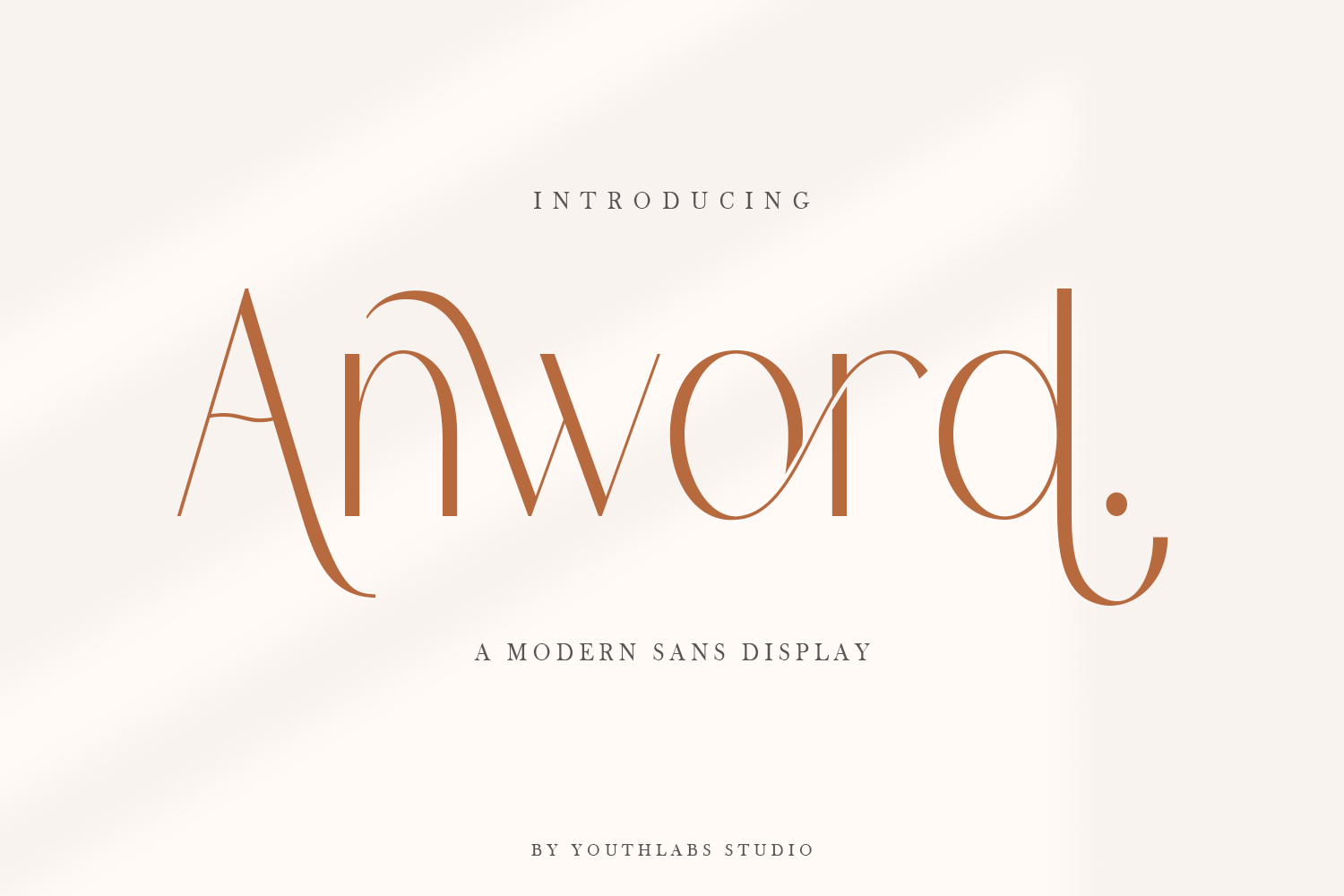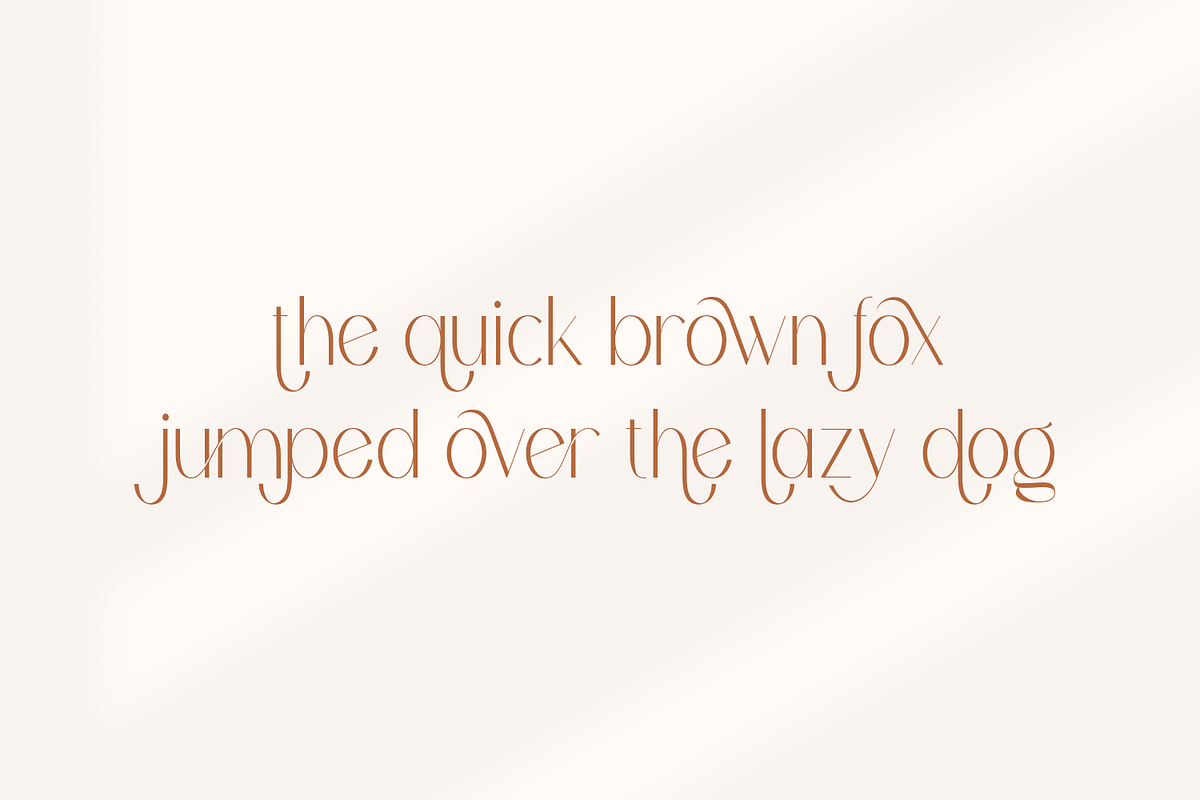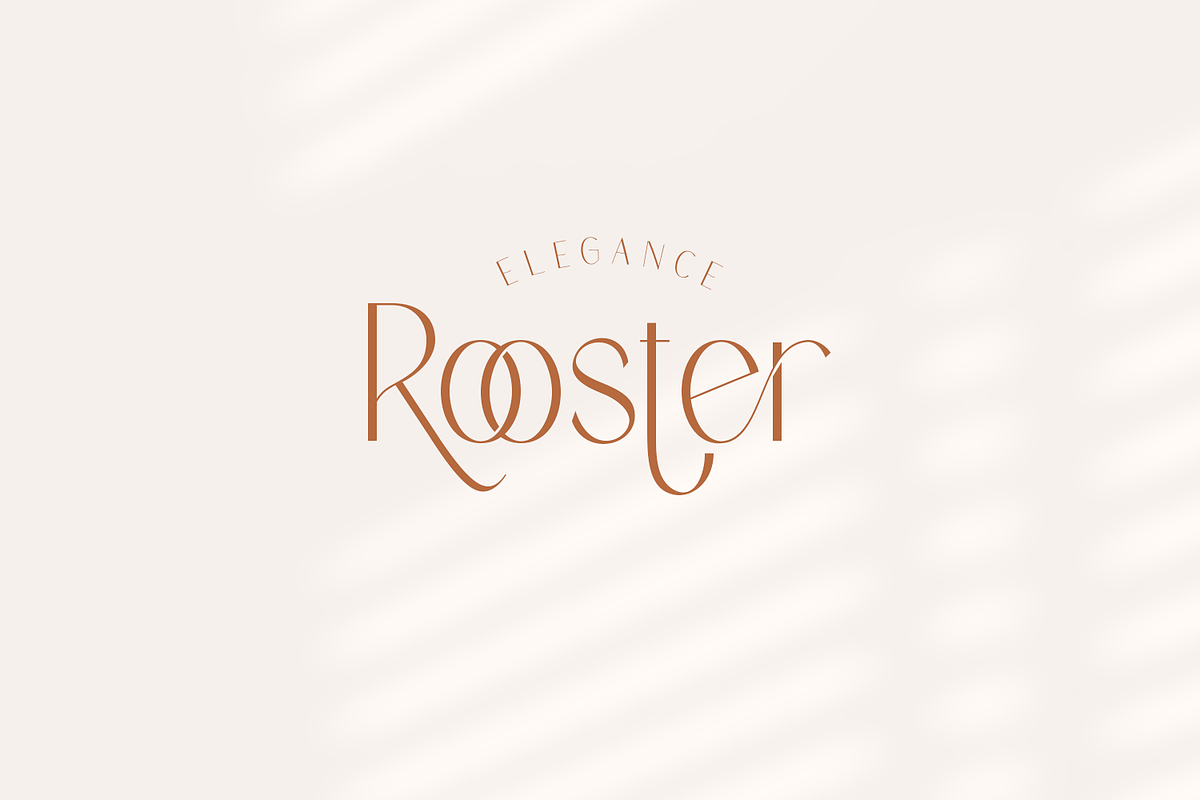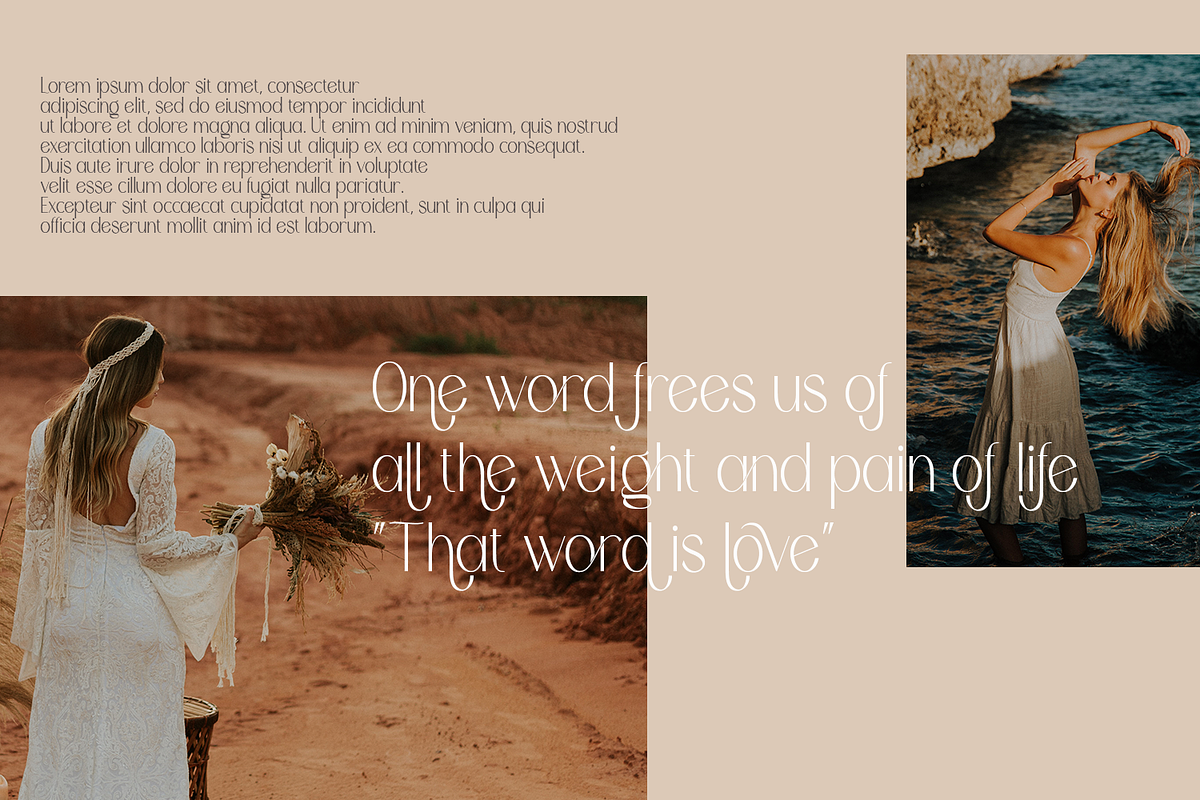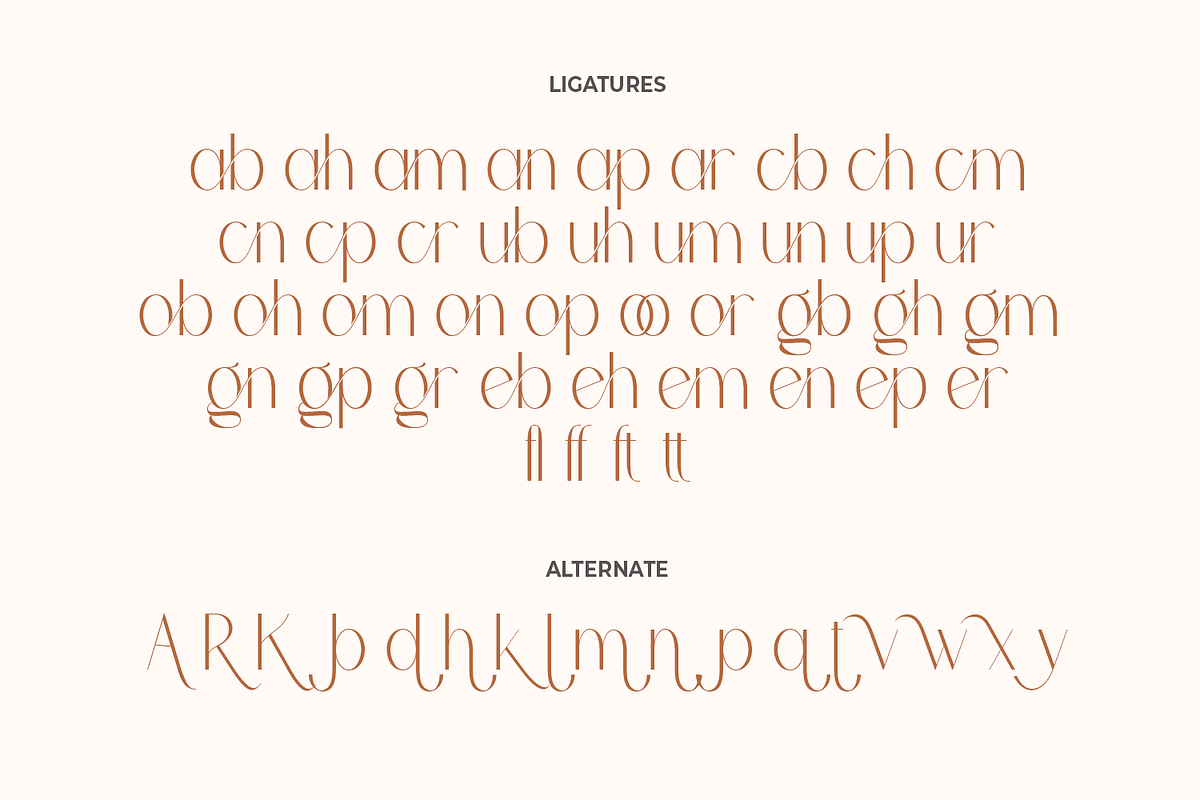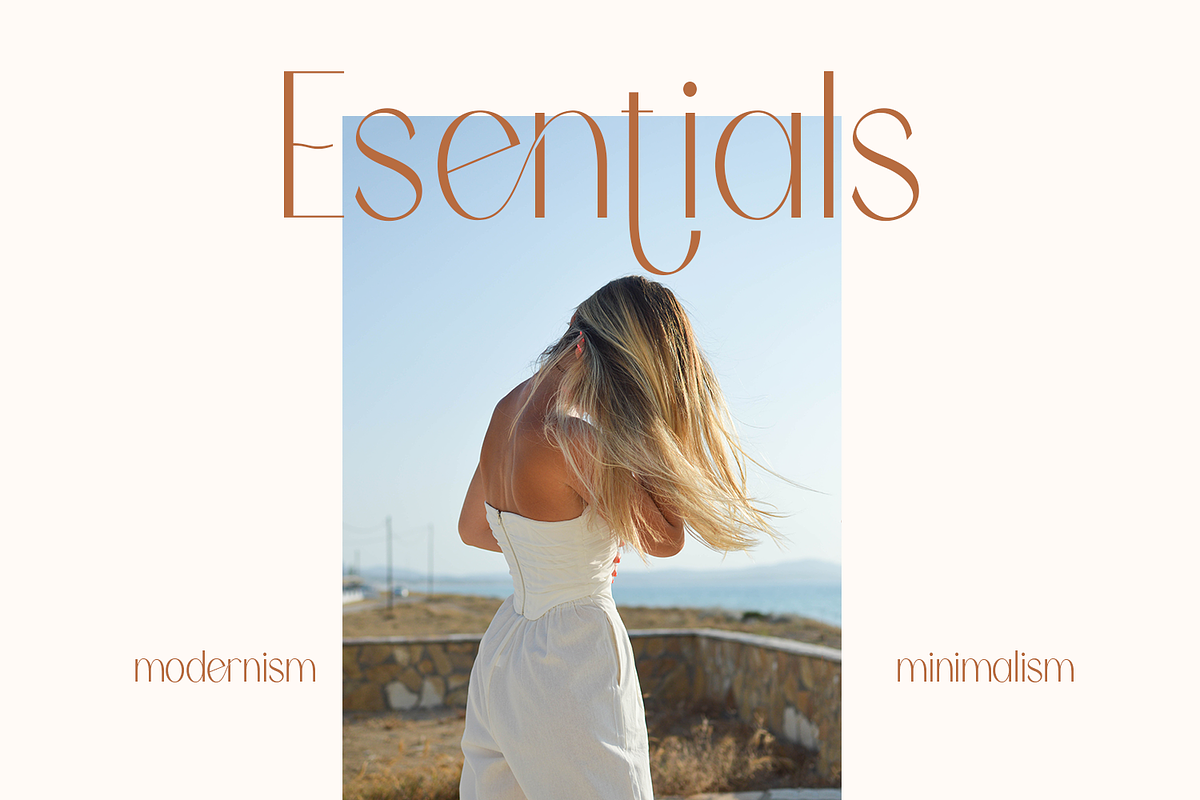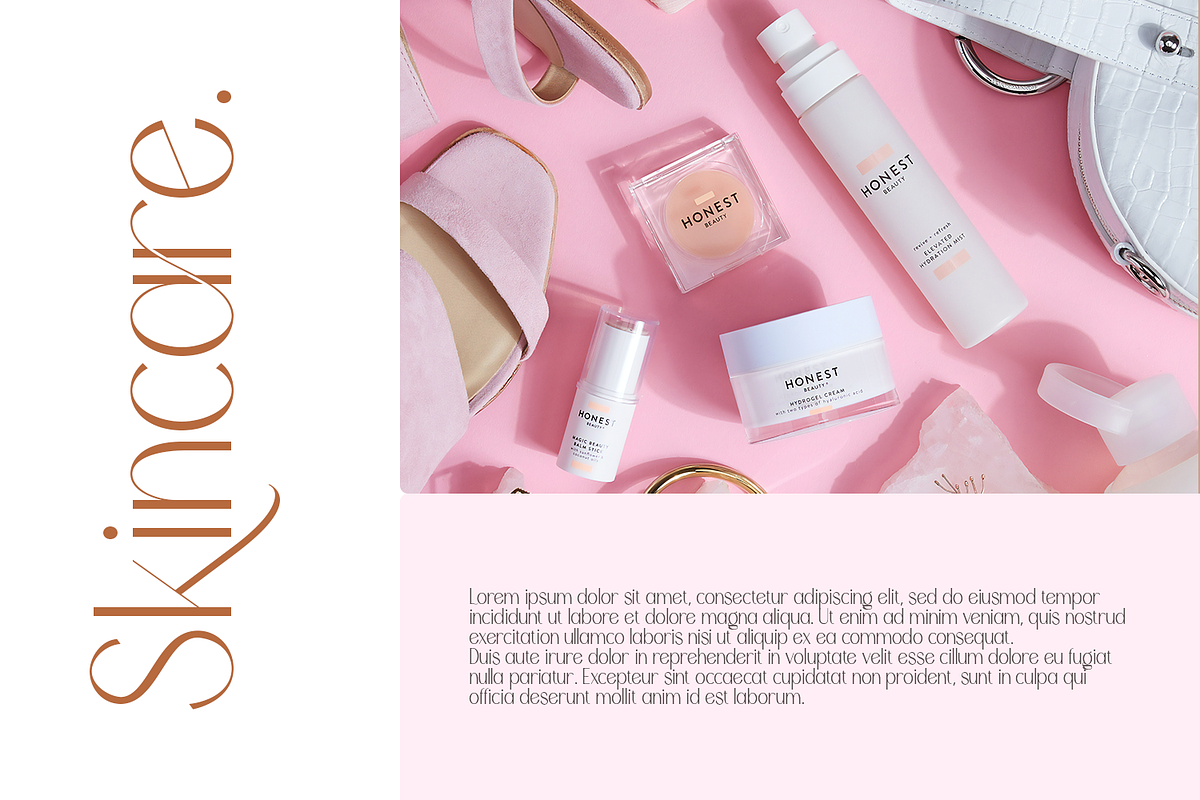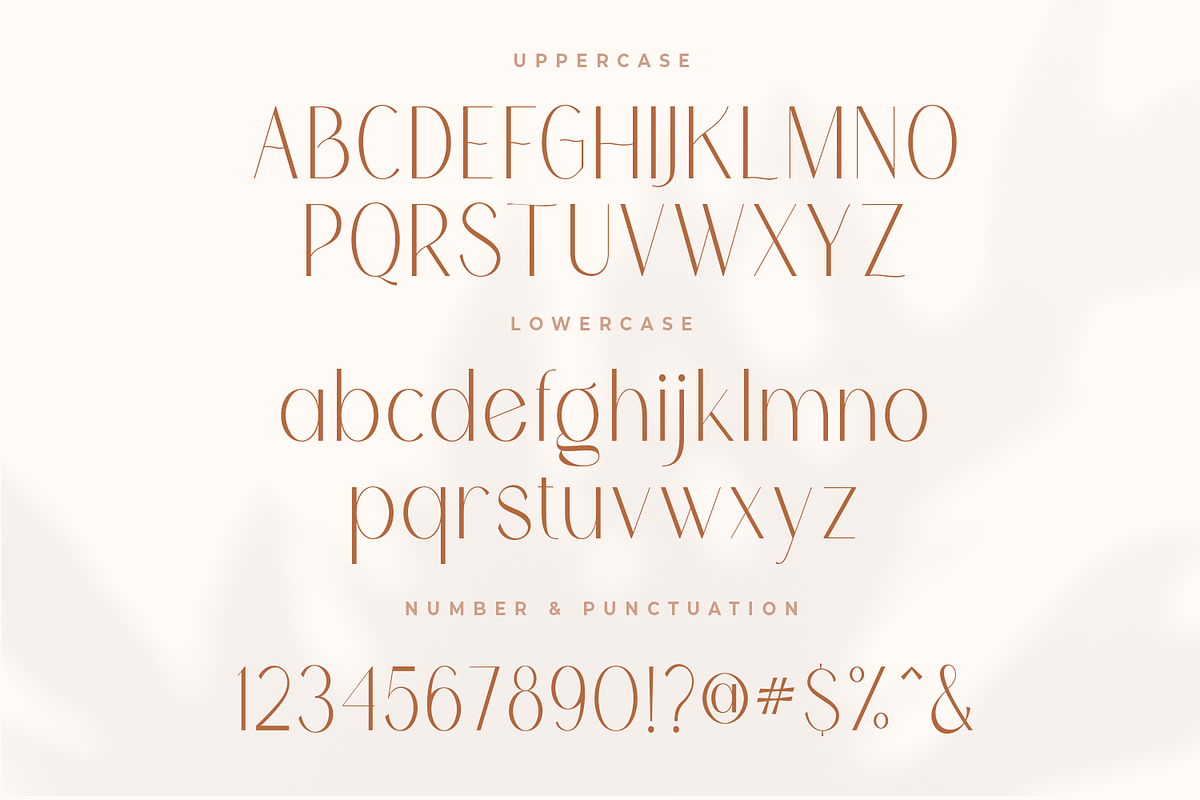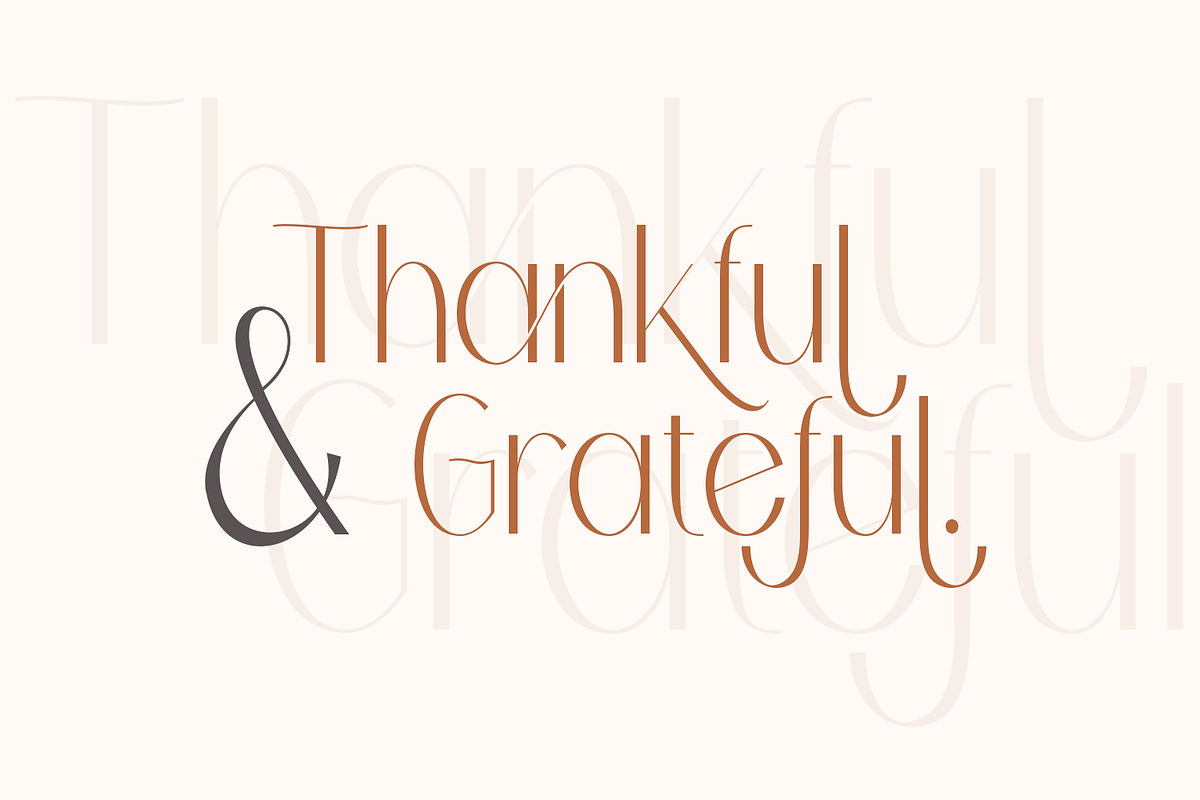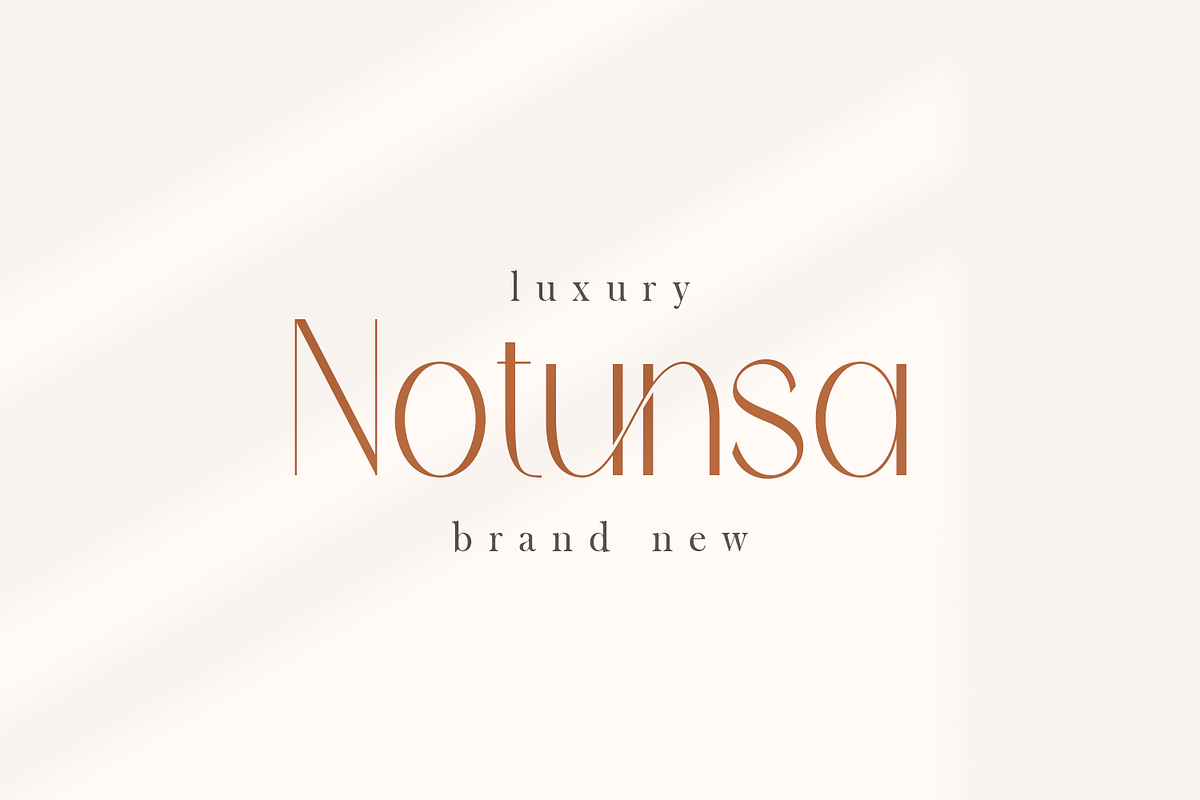
Anword | Modern Sans Display Font
Anword font is a modern sans display font that shows a modern elegant with unique ligatures and alternates to leverage designer or product owner that need solutions to make their design look more modern and stylish. This Anword is very suitable for making product logos and displays in magazines, lookbooks, catalogs and others.
What's the Feature ?
- Multilinguals